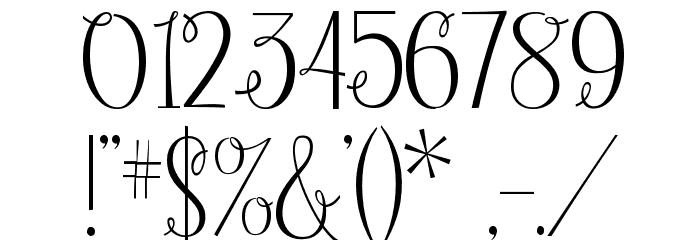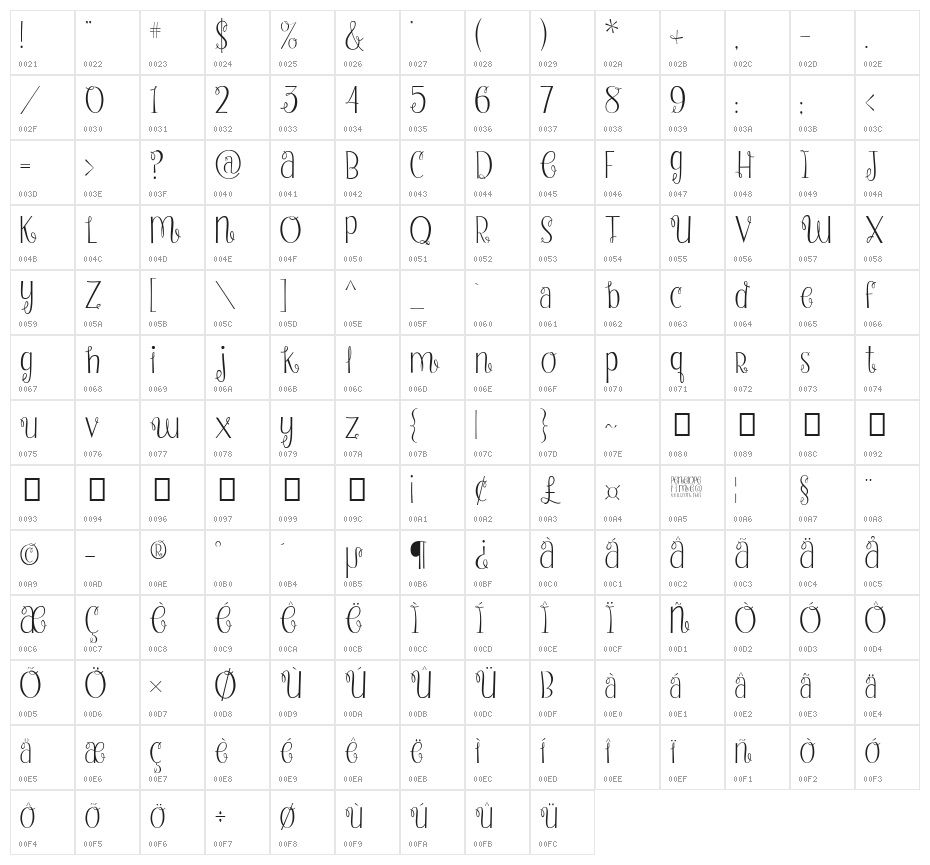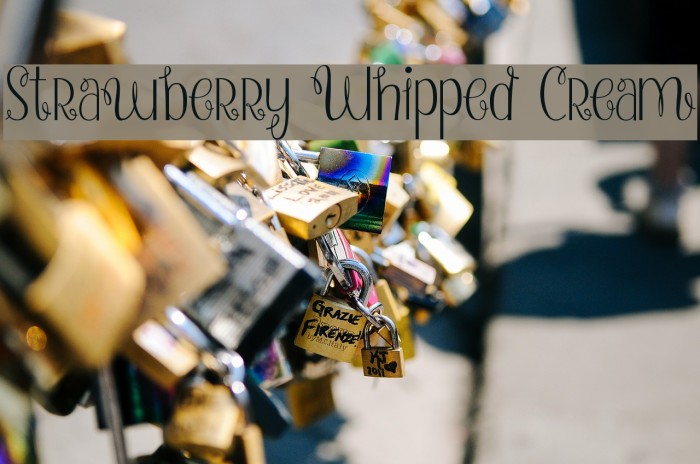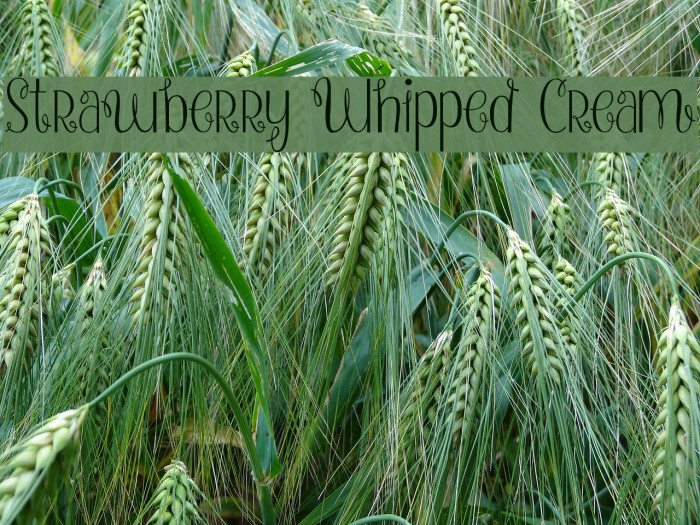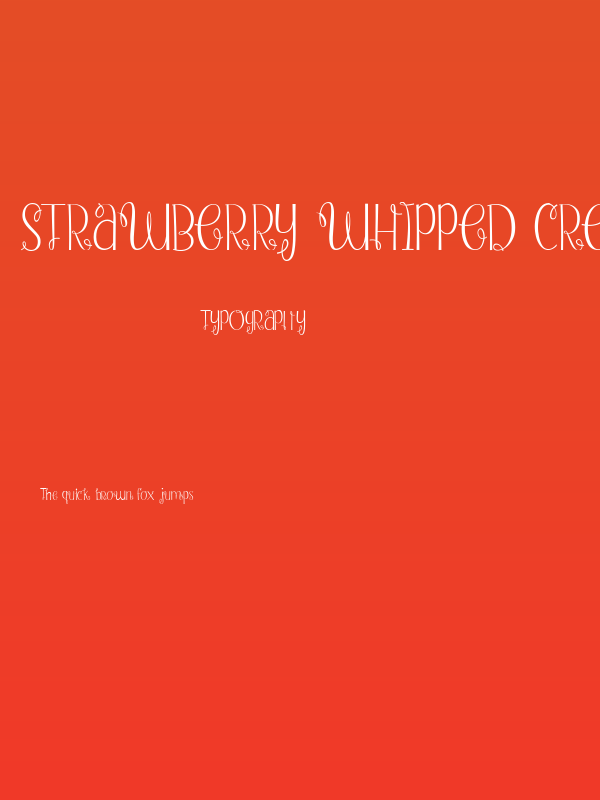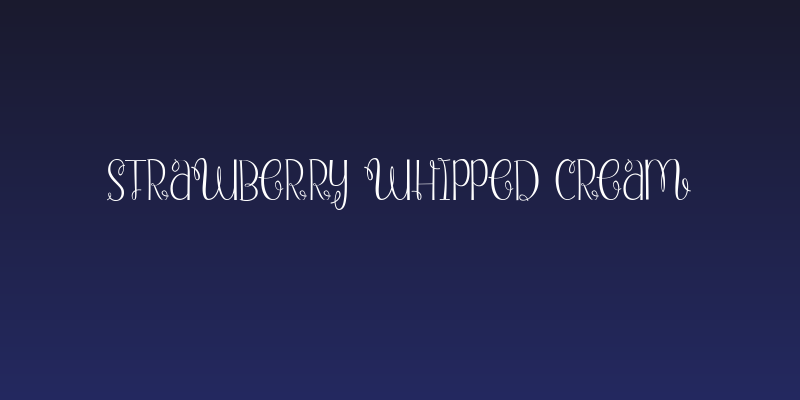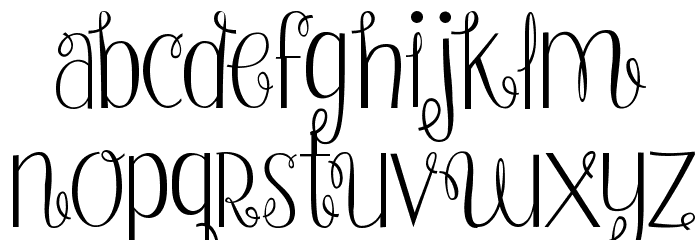
Strawberry Whipped Cream Font
Strawberry Whipped Cream Description
This font features a whimsical and playful design with a decorative flair. Each character is adorned with elegant swirls and loops, giving it a unique and artistic appearance. The uppercase letters are tall and slender, while the lowercase letters maintain a consistent style with charming embellishments. Numbers and special characters follow the same decorative theme, ensuring a cohesive look across all elements. The font's intricate details make it stand out, perfect for projects that require a touch of creativity and elegance.
| Proposed Projects | Ideal for wedding invitations, greeting cards, branding for creative businesses, and decorative posters. |